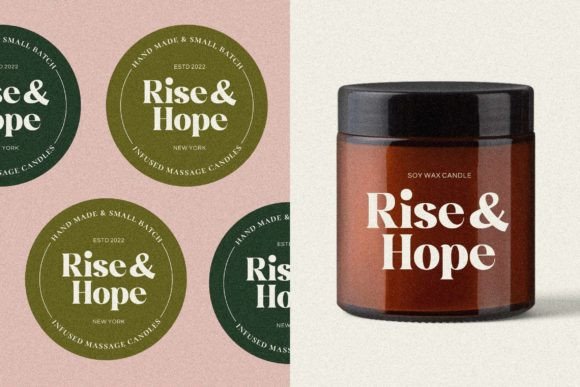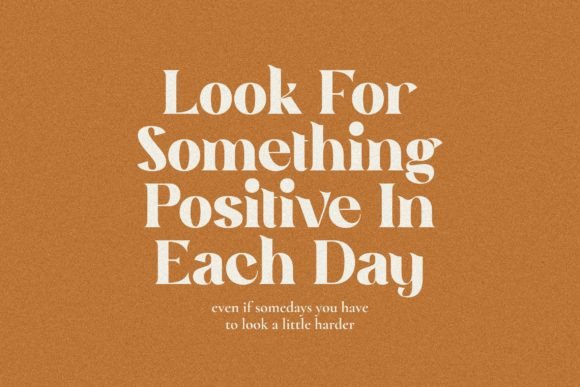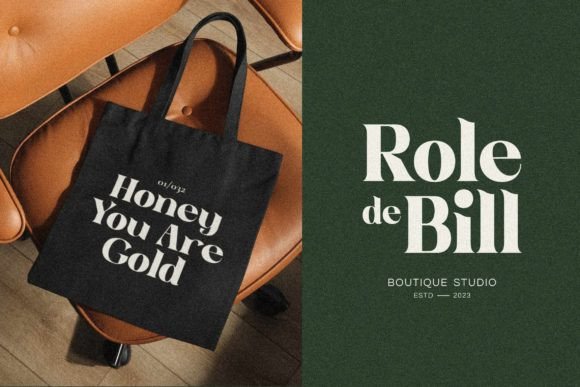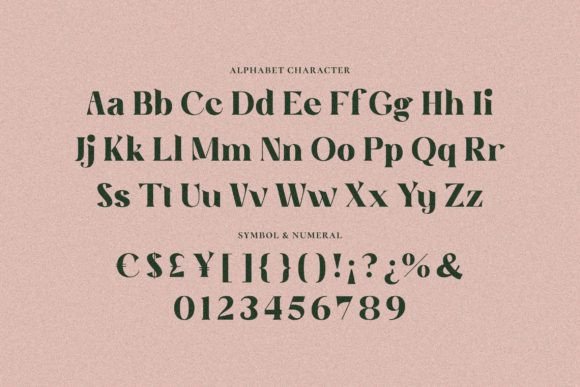
Bolle Roteid Font: Elevate Your Designs with Bold Serif Elegance
In the realm of typography, a font can make or break the visual appeal of a design. For those seeking a bold statement, Bolle Roteid Font emerges as a stunning choice. This aesthetic bold serif font, complemented by unique shapes, is engineered to leave a deep impression. Its distinctive style positions it as an ideal selection for projects that demand a modern and minimalist flair. Whether you’re a designer, a craftsperson, or a DIY enthusiast, Bolle Roteid offers the versatility and elegance needed to elevate your creative endeavors.
Characteristics of Bolle Roteid Font
Bolle Roteid is distinguished by its bold serif characteristics, which are accentuated by unique shapes. These features not only contribute to its aesthetic appeal but also enhance its readability, particularly in larger formats. The font’s design ensures that it stands out, making it perfect for:
- Headlines and Titles: Bolle Roteid’s bold presence ensures that your headlines and titles capture attention effortlessly.
- Logos: Its unique and memorable style makes it an excellent choice for logos that need to stand out.
- Posters: For posters, the font’s clarity and impact are invaluable, especially when conveying a message quickly and effectively.
- Branding: Bolle Roteid can significantly contribute to a brand’s visual identity, offering a distinctive look that can set a brand apart from its competitors.
Why Choose Bolle Roteid?
Choosing Bolle Roteid for your design projects comes with several advantages:
- Versatility: Despite its bold nature, Bolle Roteid can be surprisingly versatile, suitable for a range of design themes, from modern and minimalist to more traditional and elegant looks.
- Elegance: The font exudes a sense of elegance and sophistication, making it suitable for high-end branding and luxury product designs.
- Uniqueness: In a sea of generic fonts, Bolle Roteid offers a breath of fresh air with its unique shapes and bold serifs, ensuring your designs don’t go unnoticed.
Using Bolle Roteid in Design Projects
To maximize the potential of Bolle Roteid, consider the following tips:
- Pair with Simplicity: While Bolle Roteid is bold and striking, it can be best paired with simpler fonts for body text to maintain visual balance.
- Experiment with Sizes: Don’t be afraid to experiment with different sizes. Bolle Roteid’s impact is amplified in larger sizes, but it can also add subtle elegance in smaller applications.
- Consider Color: The font’s boldness makes it versatile for use with various color schemes. Ensure the color contrast is high enough to make the text legible.
Bolle Roteid Font stands out as a powerful tool in the arsenal of designers and crafters. Its bold serif design, coupled with unique shapes, offers a fresh perspective on typography. Suitable for a range of applications, from headlines and logos to posters and branding, Bolle Roteid is poised to leave a lasting impression. Whether you’re aiming for a modern minimalist look or simply seeking a font that makes a statement, Bolle Roteid is undoubtedly worth considering.